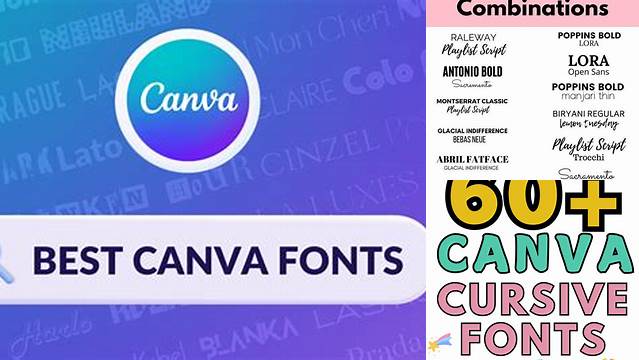
Best Canva Fonts: How To Choose And Pair Fonts
Hey guys! Are you looking to elevate your Canva designs? Choosing the right font can make all the difference. The perfect typography can capture attention, communicate your message effectively, and leave a lasting impression. But with so many fonts available in Canva, it can be overwhelming to choose the perfect one. This guide will help you navigate the world of Canva fonts, offering tips, examples, and recommendations to make your designs shine.
Why Fonts Matter in Design
Font selection is a crucial element in graphic design. Think of fonts as the voice of your message. A playful, bubbly font might be great for a children's party invitation, but it wouldn't suit a professional business report. The right font choice reinforces your brand identity, enhances readability, and evokes the desired emotions in your audience.
- Brand Identity: Your font choices should align with your brand's personality. Are you aiming for a modern, sophisticated look or a more traditional, trustworthy feel? The fonts you use across your marketing materials, including social media graphics and presentations, should be consistent to build brand recognition. For example, a tech company might lean towards clean, sans-serif fonts, while a luxury brand might opt for elegant serif fonts.
- Readability: A beautiful font is useless if it's difficult to read. Consider the size and spacing of your text, as well as the background color. Choose fonts that are clear and legible, especially for body text. Sans-serif fonts are generally easier to read on screens, making them a popular choice for websites and digital content. Serif fonts, with their small decorative strokes, can be more readable in print.
- Emotional Impact: Fonts have the power to evoke emotions. Some fonts feel playful and energetic, while others feel formal and serious. Think about the mood you want to create and select fonts that match. A handwritten font can add a personal touch, while a bold, uppercase font can convey strength and confidence. Understanding the psychology of fonts can significantly impact your design's effectiveness.
Understanding Font Types
Before diving into specific Canva fonts, let's understand the basic font categories:
- Serif Fonts: These fonts have small decorative strokes, called serifs, at the ends of the letters. They often convey a traditional, formal, and trustworthy feel. Common serif fonts include Times New Roman, Georgia, and Playfair Display. They are often used in headlines and body text in print materials like books and newspapers.
- Sans-Serif Fonts: Sans-serif fonts lack the decorative strokes, giving them a cleaner, more modern appearance. They are often used for digital content, logos, and headings. Popular sans-serif fonts include Arial, Helvetica, and Montserrat. Their simplicity and legibility make them ideal for screen reading.
- Script Fonts: Script fonts mimic handwriting, adding a personal and elegant touch. They are best used sparingly, for headings or accents, as they can be difficult to read in large blocks of text. Examples include Brush Script, Pacifico, and Lobster. They are commonly used in invitations, greeting cards, and branding materials for creative businesses.
- Display Fonts: Display fonts are designed to grab attention and are typically used for headings and titles. They come in a wide variety of styles, from bold and impactful to quirky and playful. Examples include Impact, Bebas Neue, and ChunkFive. When using display fonts, ensure they complement the overall design and don't overwhelm the other elements.
Top Canva Font Recommendations
Canva offers a wide variety of fonts, but here are some top recommendations, categorized for different design needs:
Best Canva Fonts for Headlines
Headlines are the first thing people see, so you need a font that grabs their attention. Bold, impactful fonts are a great choice for making a statement.
- Bebas Neue: A clean, modern sans-serif font that is highly versatile and widely used. Its tall, condensed letters make it perfect for headlines and posters.
- Montserrat: A geometric sans-serif font that exudes sophistication and modernity. It's a great choice for both headlines and body text.
- Playfair Display: An elegant serif font with high contrast and graceful curves. It's ideal for headlines that need a touch of sophistication and luxury.
- Oswald: A classic sans-serif font that is bold and easy to read. It works well for both digital and print designs.
- Raleway: A stylish sans-serif font with a sleek and modern feel. It's a great choice for headlines and subheadings.
When selecting headline fonts, consider the overall tone of your design. A bold and impactful font will draw attention, while an elegant serif font will convey sophistication. Ensure the font is legible and complements the other design elements.
Best Canva Fonts for Body Text
Body text needs to be easy to read, so choose fonts that are clear and legible. Sans-serif fonts are often preferred for digital body text, while serif fonts can work well in print.
- Open Sans: A highly readable sans-serif font that is clean and versatile. It's a great choice for websites, documents, and presentations.
- Lato: A modern sans-serif font with a friendly and approachable feel. It's easy on the eyes and works well in a variety of contexts.
- Roboto: A geometric sans-serif font that is both modern and professional. It's a popular choice for digital content and user interfaces.
- Lora: A well-balanced serif font that is elegant and readable. It's a great choice for body text in print and digital designs.
- Merriweather: A robust serif font designed specifically for on-screen reading. It's easy to read and works well for blog posts and articles.
For body text, readability is key. Choose fonts that are clear and legible, even at smaller sizes. Consider the spacing and kerning of the font to ensure a comfortable reading experience.
Best Canva Fonts for Script and Decorative Elements
Script and decorative fonts can add personality and flair to your designs. Use them sparingly for headings, logos, or accents.
- Pacifico: A fun and casual script font that is perfect for adding a personal touch. It's often used in logos, invitations, and social media graphics.
- Lobster: A bold and eye-catching script font that is great for headlines and logos. It has a vintage feel and adds a touch of personality.
- Dancing Script: A playful and elegant script font that is perfect for invitations and cards. It has a flowing and graceful appearance.
- Great Vibes: A beautiful and classic script font that is ideal for weddings and formal events. It exudes elegance and sophistication.
- Playlist Script: A modern and casual script font that is perfect for branding and social media. It has a handwritten feel and adds a personal touch.
When using script fonts, make sure they are legible and don't overwhelm the other design elements. Use them sparingly and pair them with simpler fonts for body text.
How to Pair Fonts in Canva
Font pairing is an art. The right combination of fonts can create a harmonious and visually appealing design. Here are some tips for pairing fonts effectively:
- Contrast: Pair a serif font with a sans-serif font to create contrast and visual interest. For example, pair Playfair Display (serif) with Montserrat (sans-serif).
- Hierarchy: Use different font sizes and weights to establish a visual hierarchy. The headline should be larger and bolder than the body text.
- Limit Fonts: Don't use too many fonts in one design. Stick to two or three fonts to maintain a cohesive look.
- Complementary Styles: Choose fonts that complement each other in style and tone. For example, a classic serif font might pair well with a modern sans-serif font.
- Readability: Always prioritize readability. Ensure the font combination is easy on the eyes and doesn't strain the reader.
Canva Font Pairing Examples
Here are a few font pairing examples you can use in your Canva designs:
- Headline: Bebas Neue, Body Text: Open Sans
- Headline: Playfair Display, Body Text: Montserrat
- Headline: Lobster, Body Text: Lato
- Headline: Oswald, Body Text: Roboto
- Headline: Pacifico, Body Text: Raleway
These combinations offer a mix of contrast and harmony, ensuring your designs are both visually appealing and easy to read.
Finding Fonts in Canva
Finding fonts in Canva is super easy! Here’s how:
- Select Text: Click on the text element you want to change.
- Font Dropdown: Go to the font dropdown menu in the top toolbar.
- Browse Fonts: Scroll through the list of available fonts or use the search bar to find specific fonts.
- Font Categories: Filter fonts by categories like Serif, Sans Serif, Script, and more.
- Brand Kit: If you have a Canva Pro account, you can set up a brand kit with your preferred fonts for easy access.
Canva Pro Font Options
Canva Pro offers even more font options, giving you access to a wider range of styles and designs. If you're serious about design, upgrading to Canva Pro is definitely worth considering. You'll get access to premium fonts, as well as other features like unlimited storage and more design elements.
Tips for Using Fonts Effectively in Canva
Using fonts effectively can take your Canva designs from good to great. Here are some extra tips:
- Consistency: Use the same fonts across all your designs to maintain brand consistency.
- White Space: Give your text some breathing room by using white space effectively. Don't overcrowd your design with too much text.
- Color Contrast: Ensure there is sufficient contrast between your text and background colors for readability.
- Test and Iterate: Experiment with different font combinations and designs to see what works best for your message.
- Accessibility: Consider users with visual impairments by using fonts that are easy to read and providing sufficient contrast.
Choosing the right Canva fonts is essential for creating visually appealing and effective designs. By understanding the different font types, font pairing principles, and Canva's font library, you can elevate your designs and create compelling visuals. Experiment with different fonts, have fun, and watch your designs come to life! Remember, the perfect font can transform your message and leave a lasting impression. So, go ahead and explore the world of Canva fonts and create something amazing! Happy designing, guys!